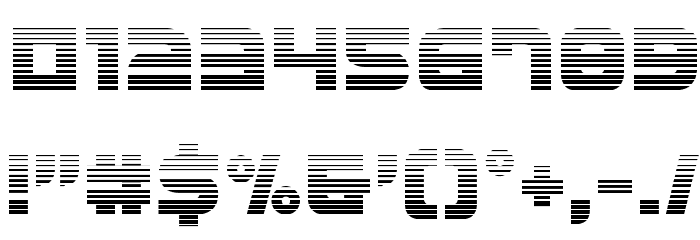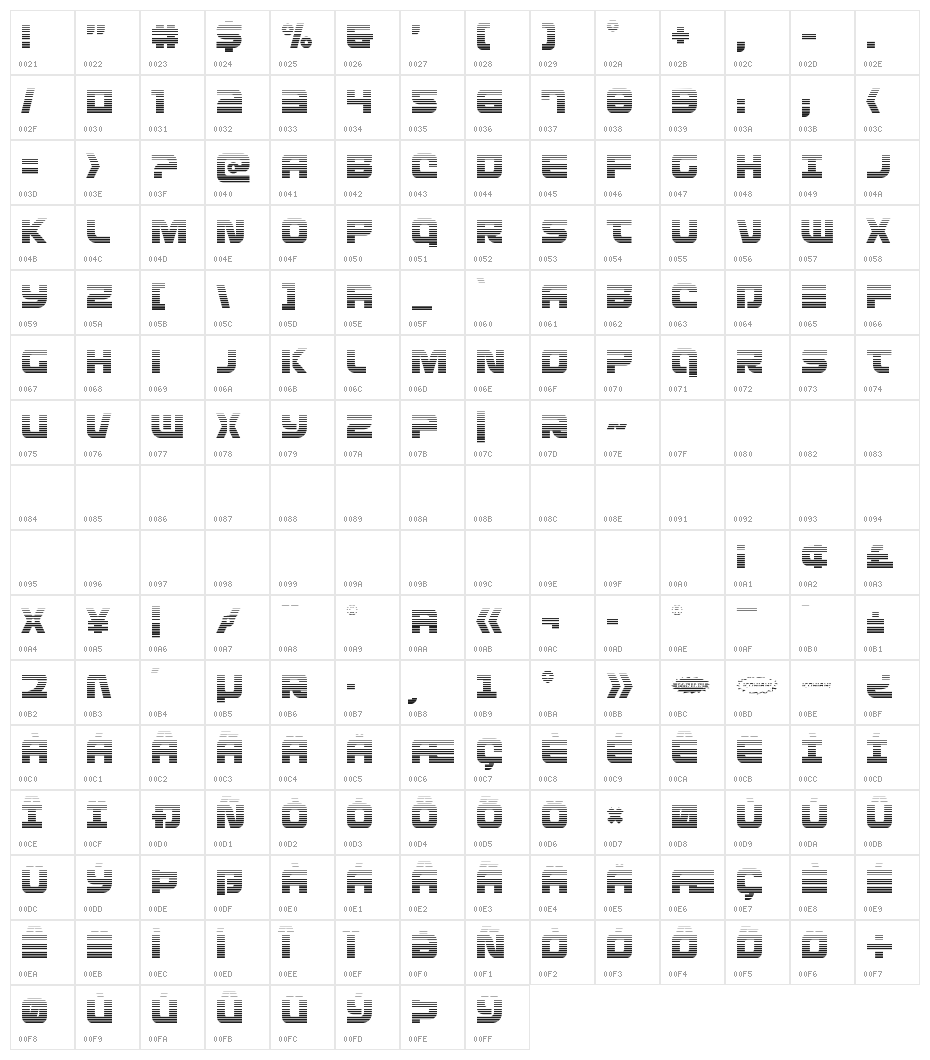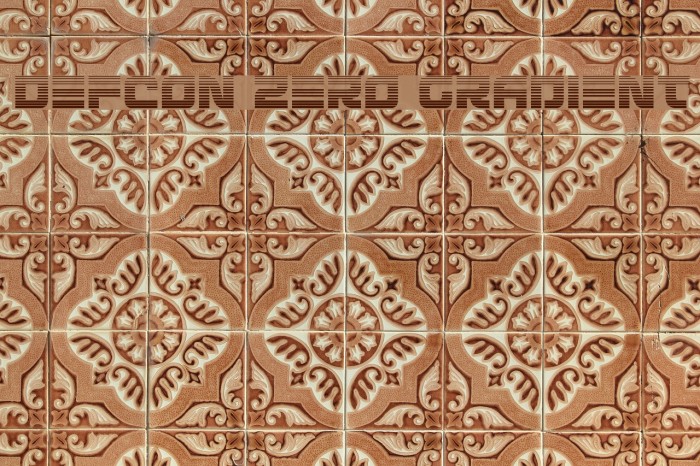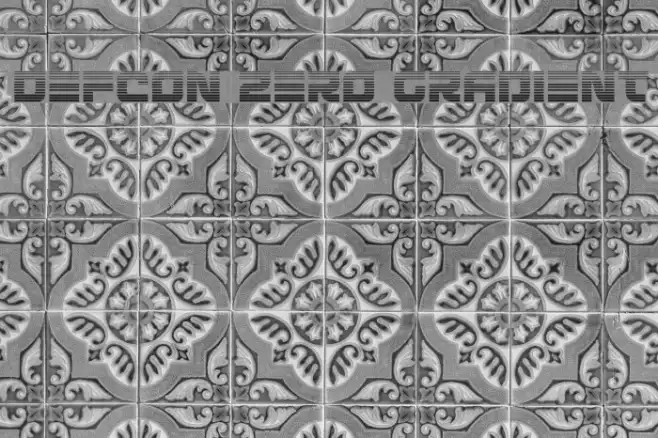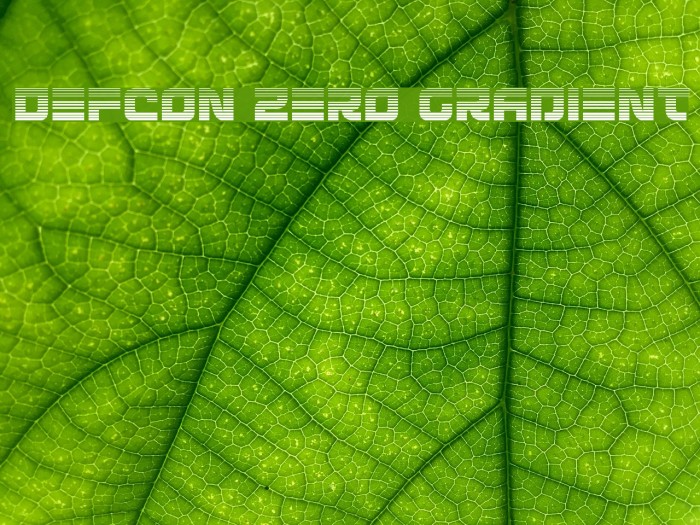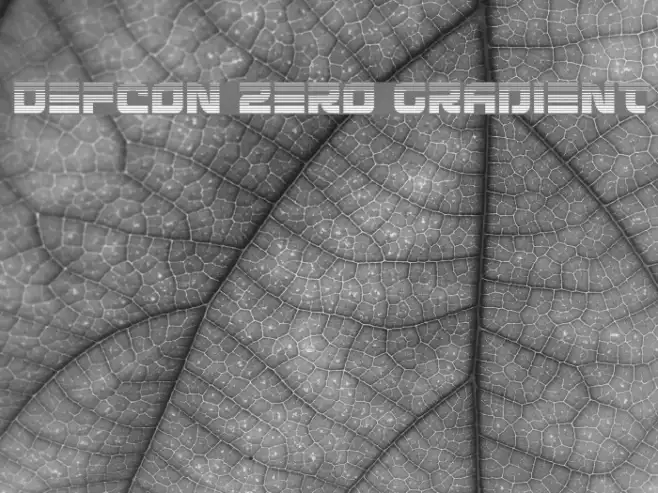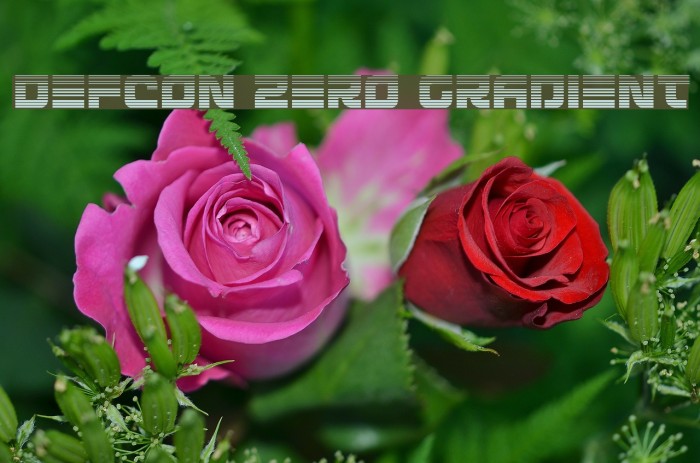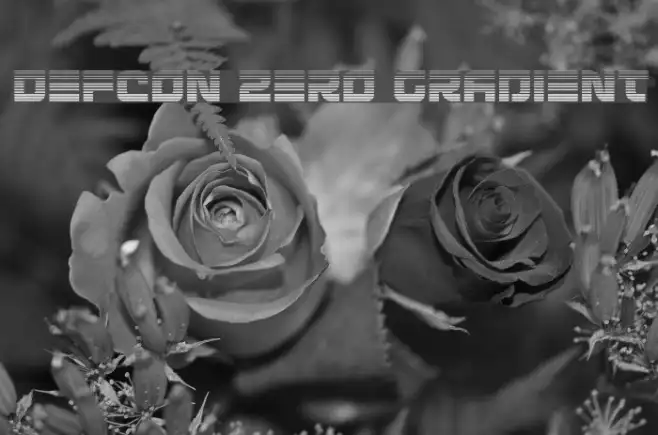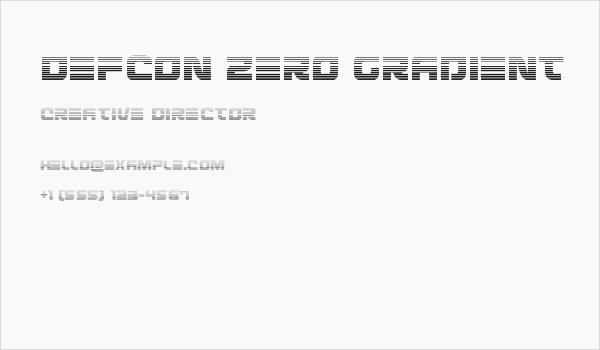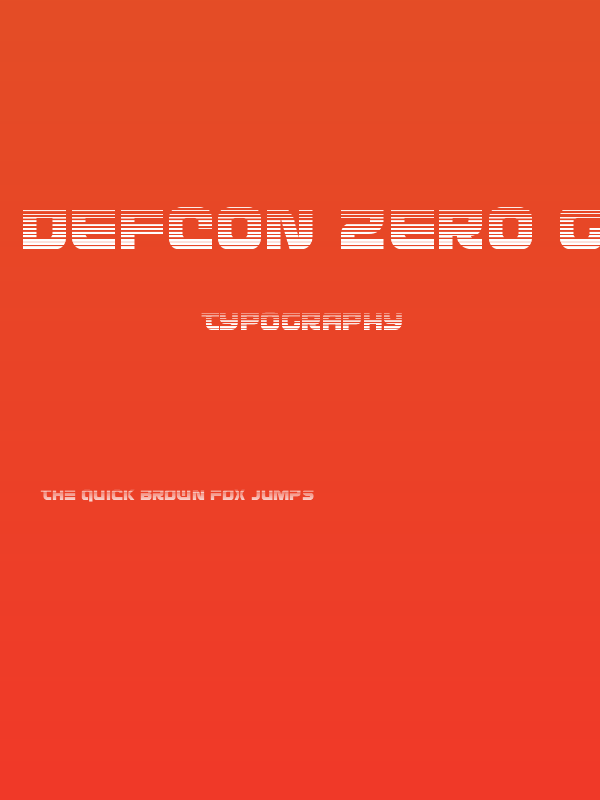
Defcon Zero Gradient Font
Defcon Zero Gradient Description
This font features a bold, futuristic design with a distinct striped pattern running horizontally through each character. The geometric shapes and sharp angles give it a modern and edgy appearance, making it stand out in any design. The uppercase and lowercase letters maintain a consistent style, while the numerals and special characters are crafted with the same attention to detail. The font's unique aesthetic is perfect for projects that require a strong visual impact, such as technology-themed designs or modern branding.
Overall StyleFuturistic
Proposed ProjectsIdeal for technology branding, sci-fi posters, video game titles, and modern advertising campaigns.